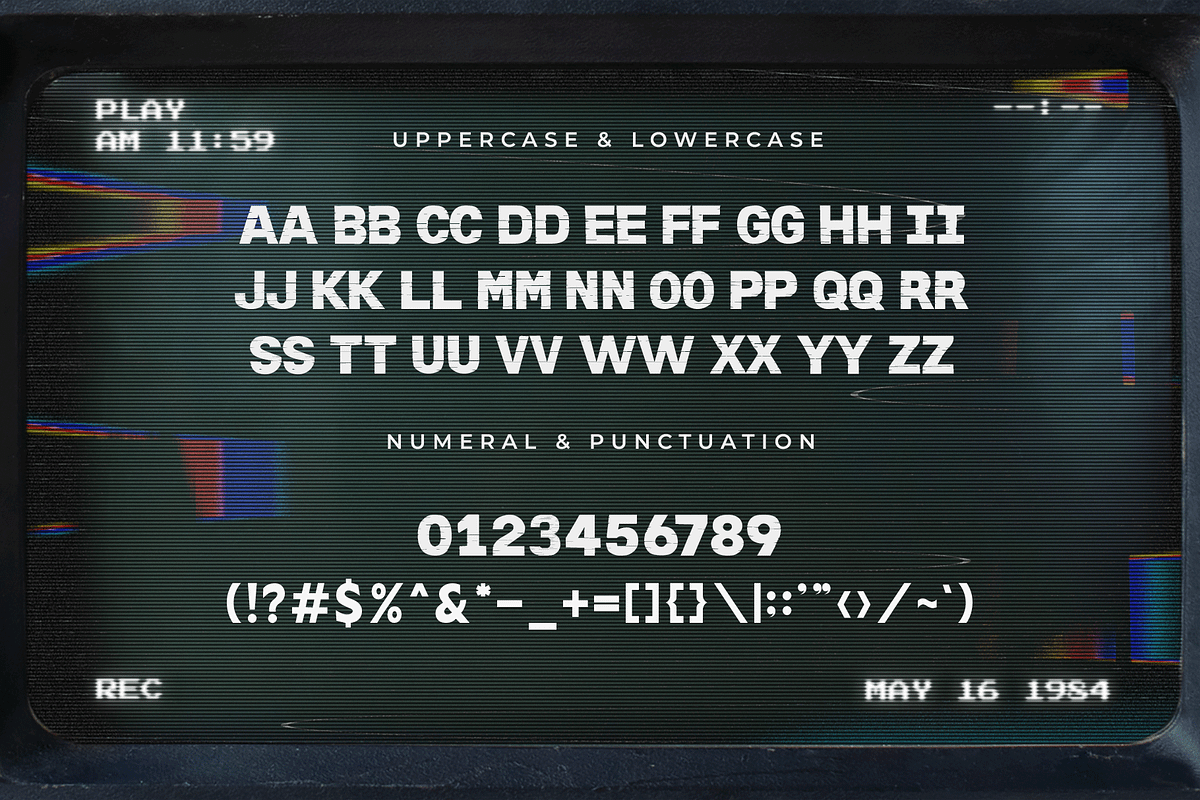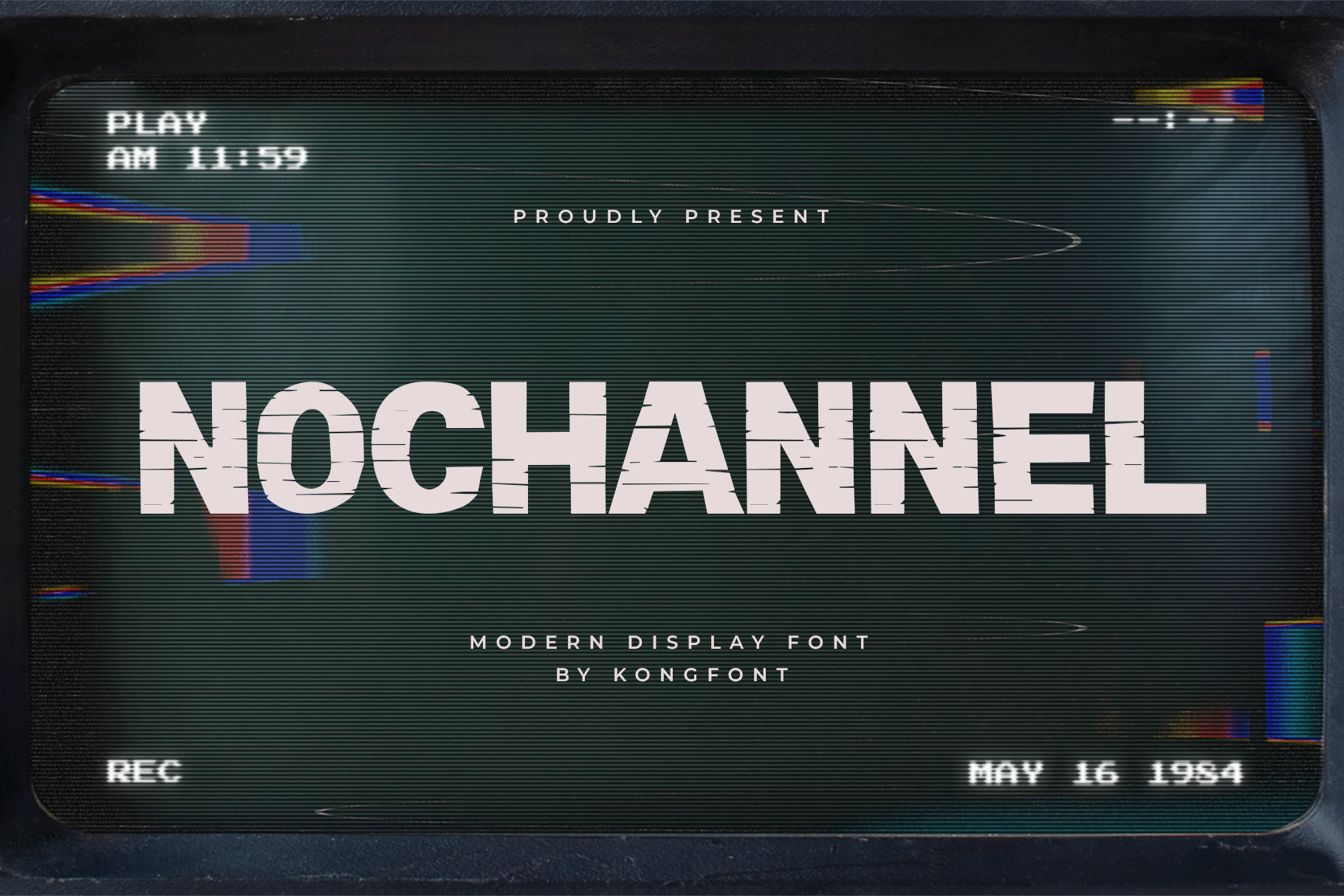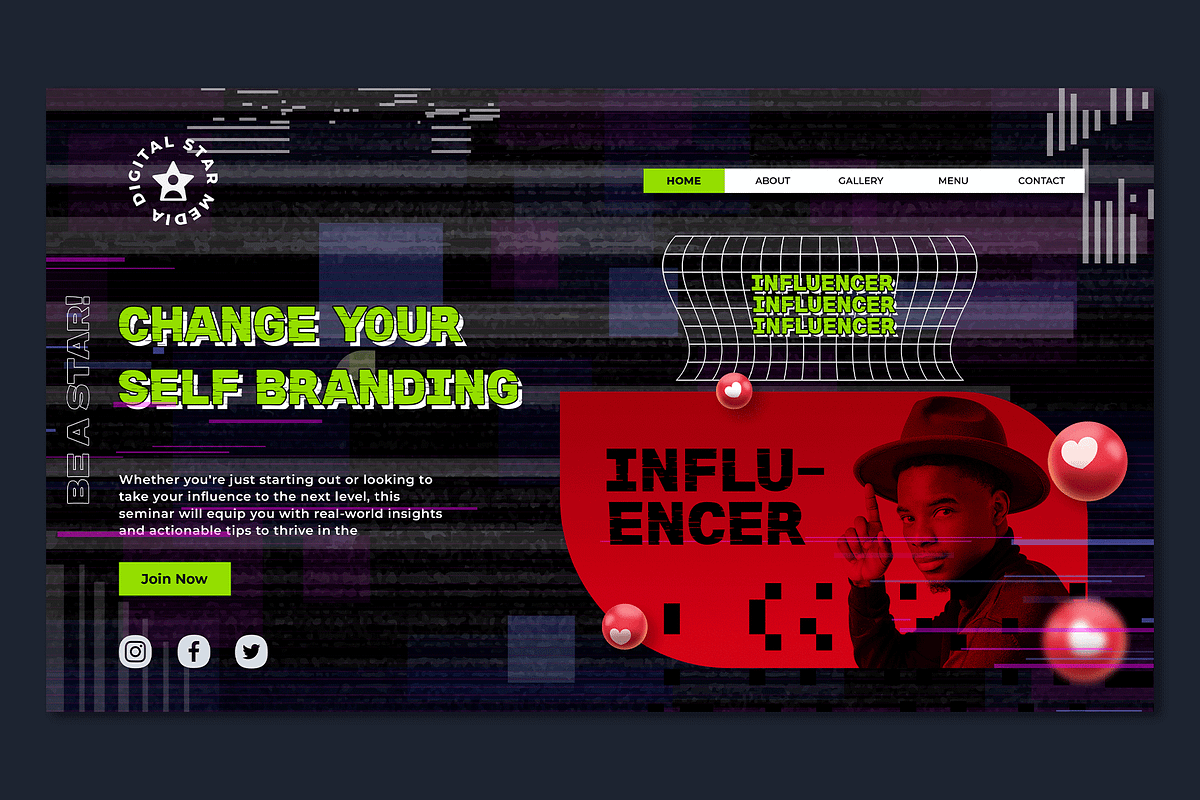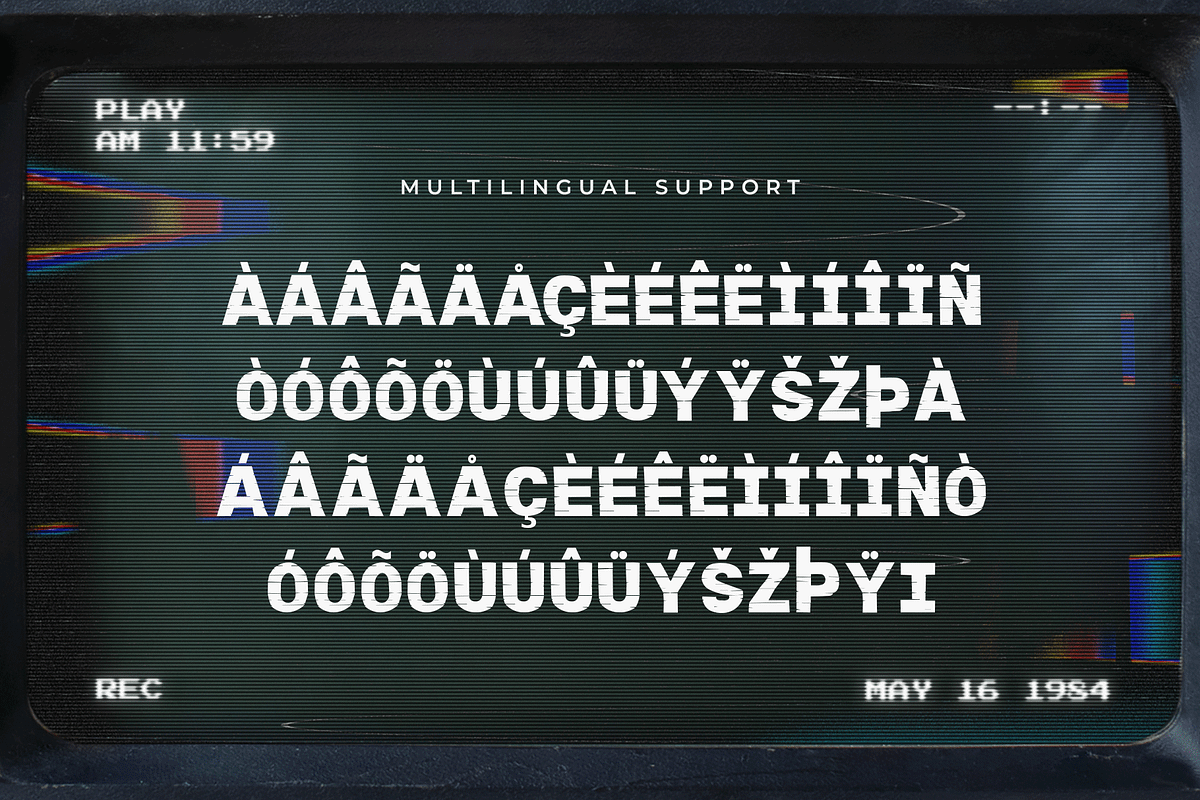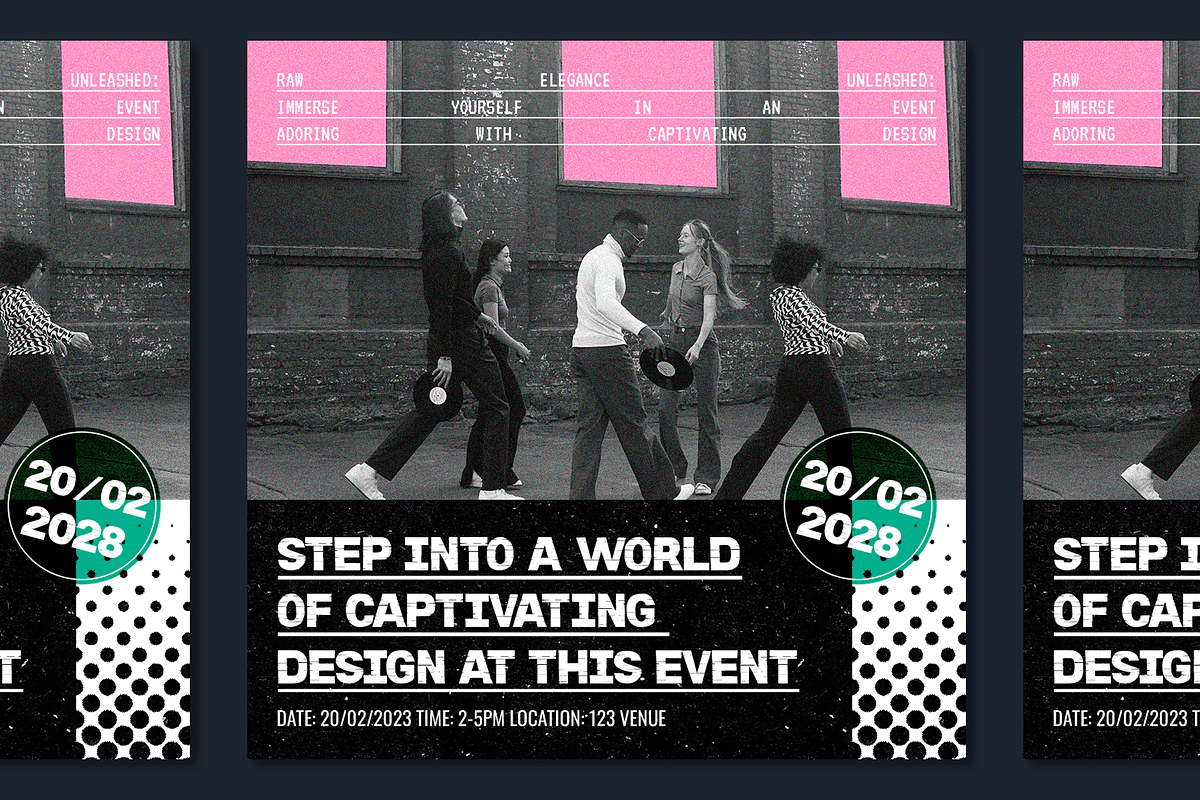
Nochannel – Modern Display Font
Nochannel is a modern display font that fuses clean geometric forms with a futuristic, tech-inspired aesthetic. With its bold presence and glitchy undertones, this typeface is built for attention-grabbing headlines, digital branding, album covers, posters, and cutting-edge creative work.
Perfect for tech startups, music projects, experimental fashion, and digital interfaces, Nochannel brings a sense of innovation and disruption to your design. Its sharp corners and confident structure give it a modern, high-impact feel—ideal for standing out in both print and screen.
Equipped with uppercase and lowercase letters, numerals, punctuation, and multilingual support, Nochannel is your go-to typeface when your message needs to be loud, modern, and unmistakably digital.